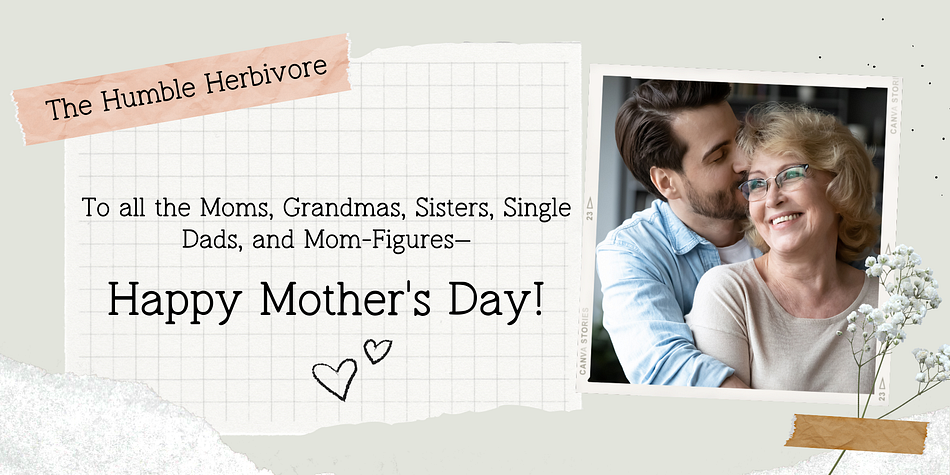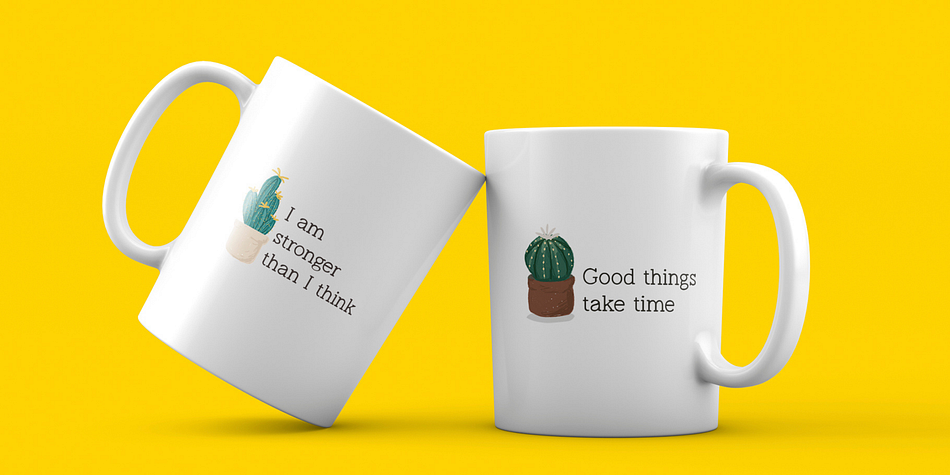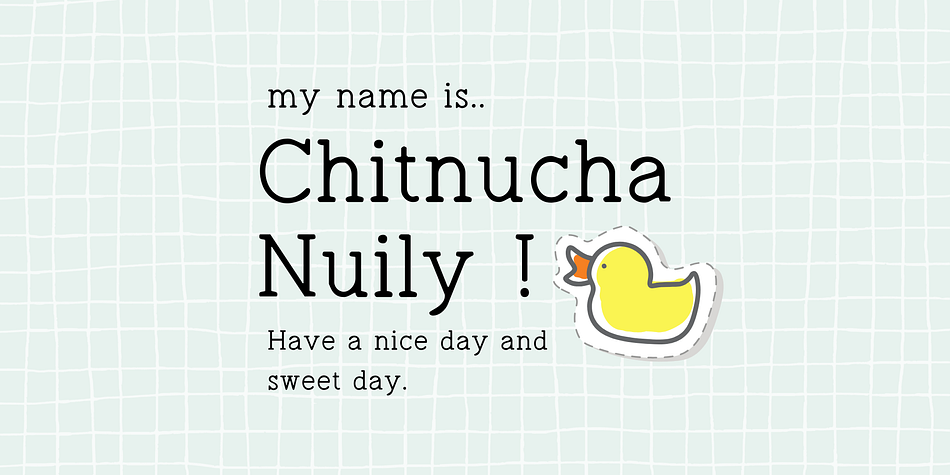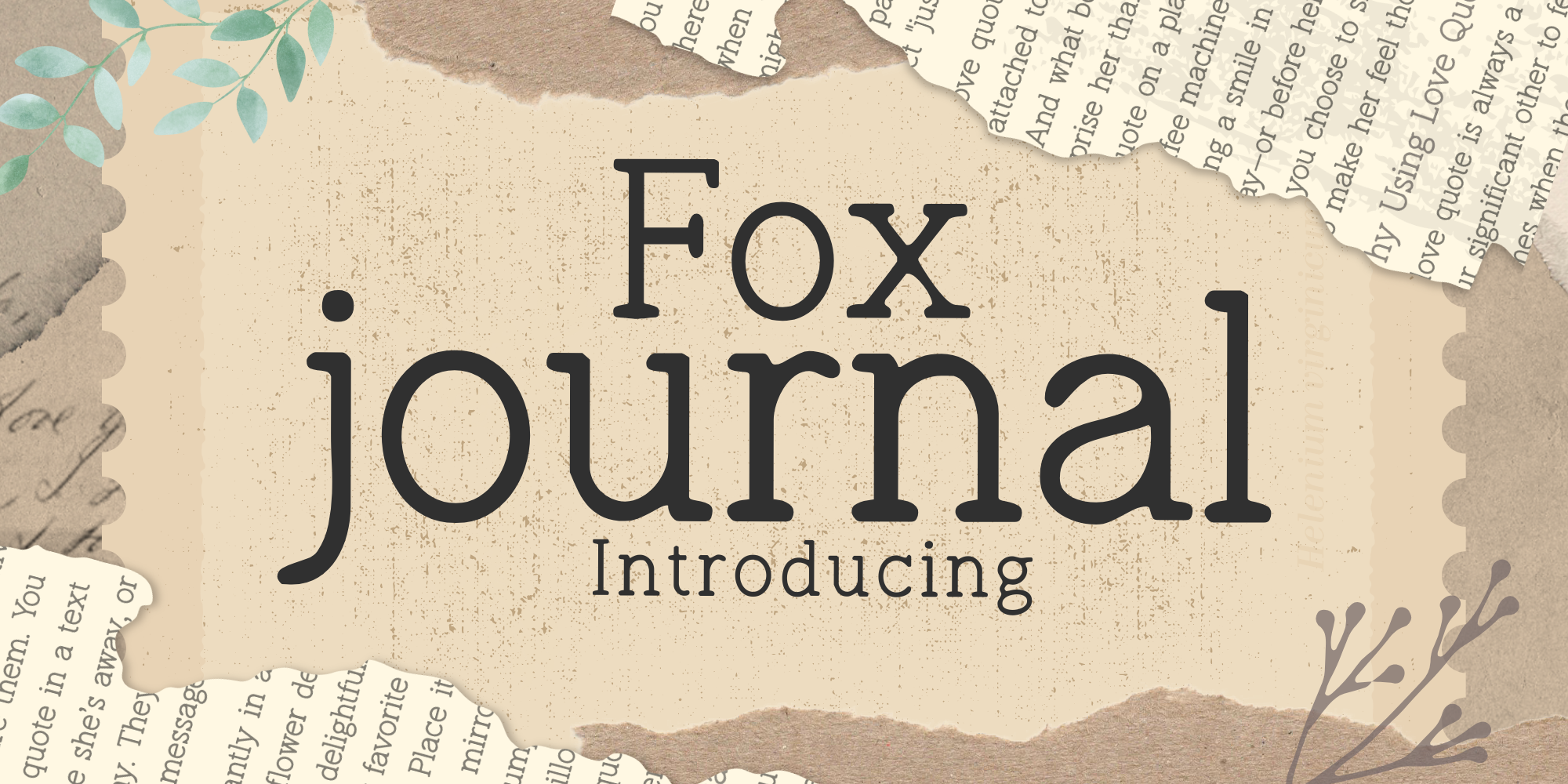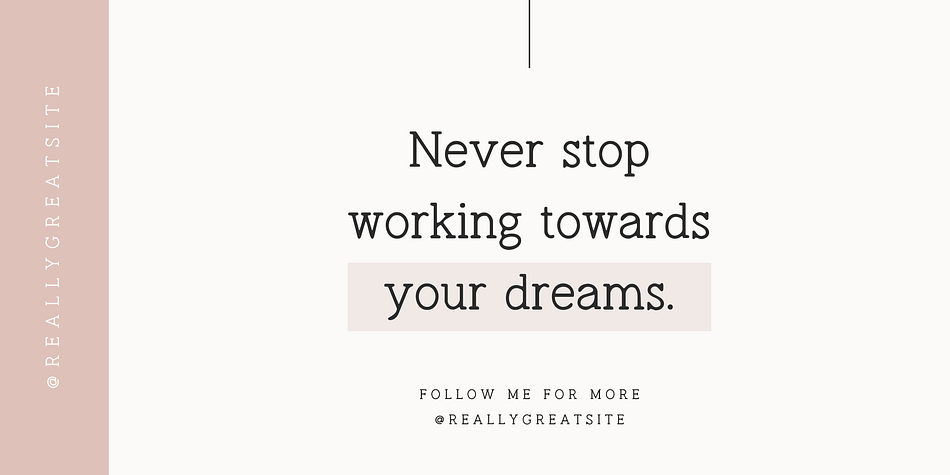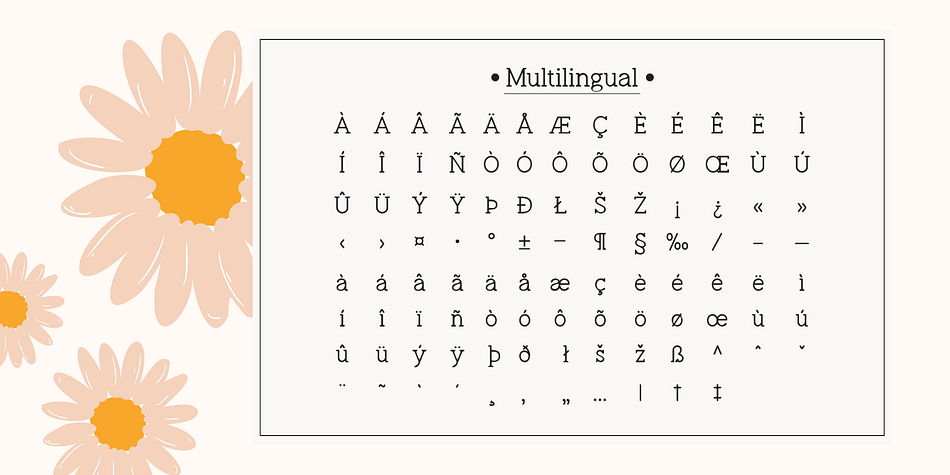
Fox Journal Font
Designed by Rattana Rattanawan, Fox Journal Font is a serif font family. This typeface has two styles and was published by Fox7.
Fox Journal is a cute, simple, and clean serif typeface. The font looks casual and playful. It’s the perfect choice for a wide range of creative projects. Whether you’re creating inspirational quotes, handwritten notes, captivating headings, engaging blogs, striking logos, or inviting invitations, Fox Journal Font adds a delightful touch to any project.